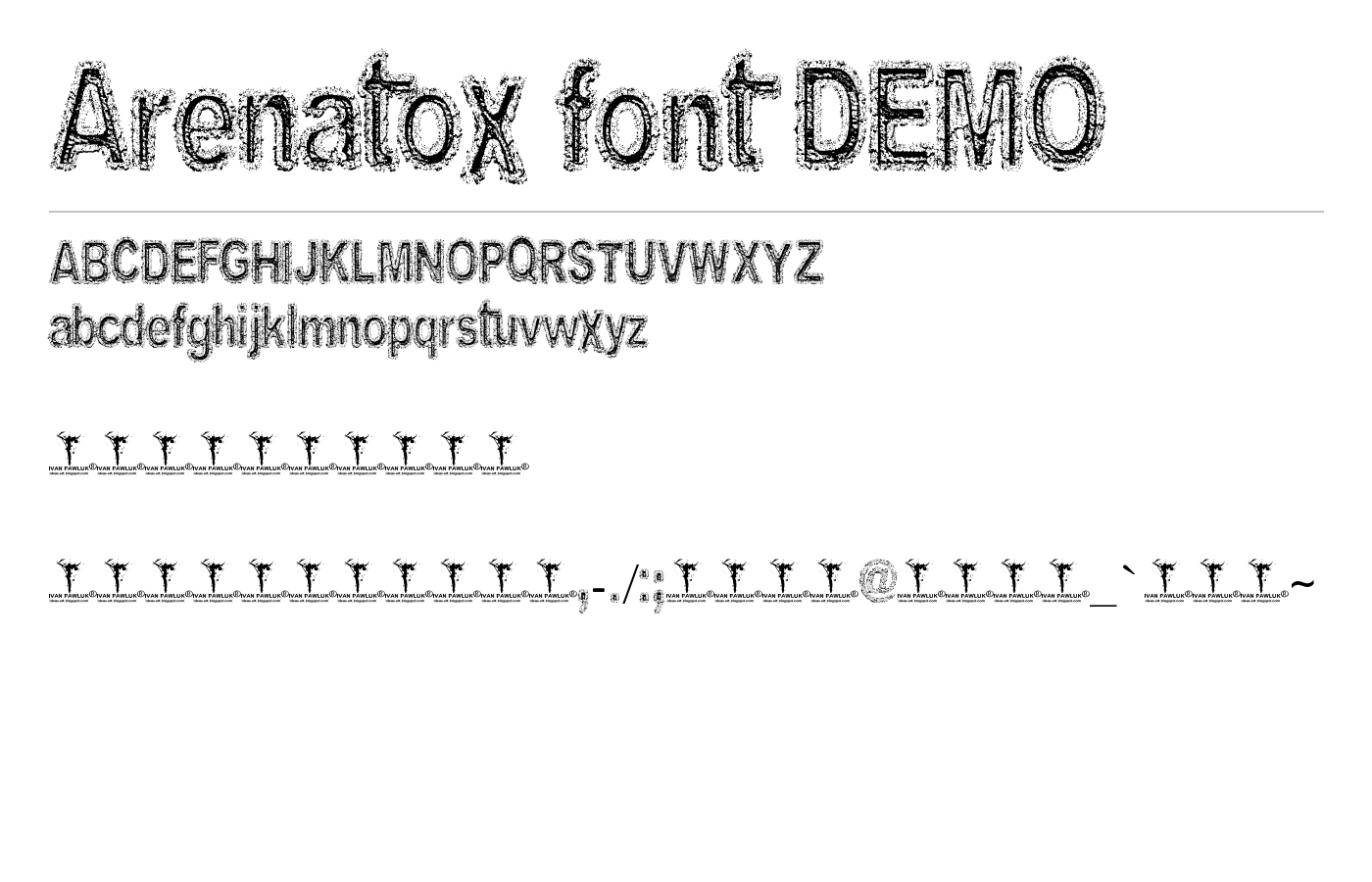
Arenatox is a distressed, sans serif font with a rough texture that gives it an edgy, worn look. Its irregular edges and medium weight make it ideal for designs needing a grunge or vintage vibe, perfect for posters, album covers, or branding that wants to stand out with a bold, artistic personality. This font adds character and a sense of raw authenticity to creative projects.
Arenatox font DEMO Font
About Arenatox font DEMO Font